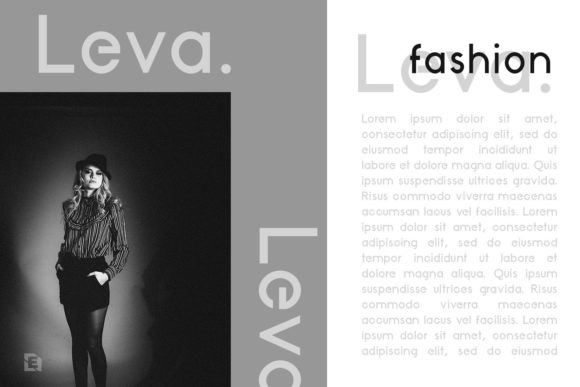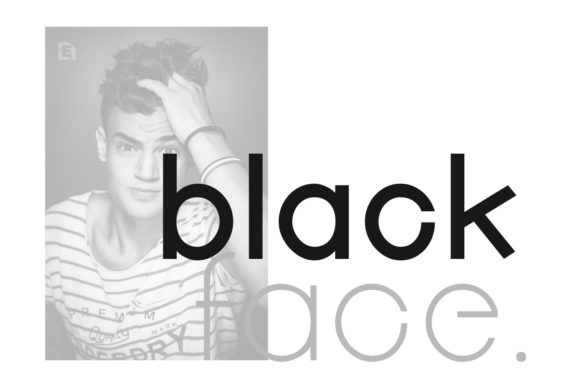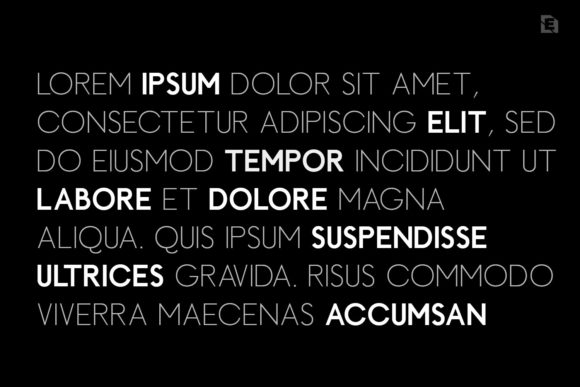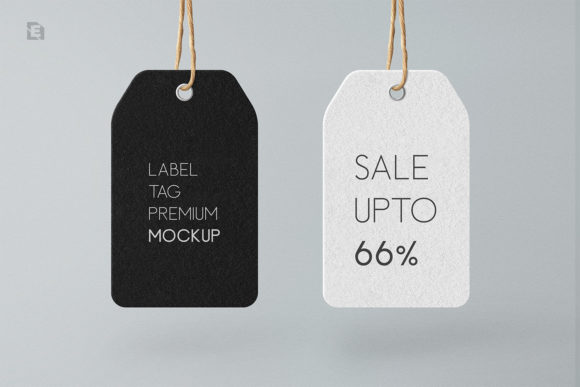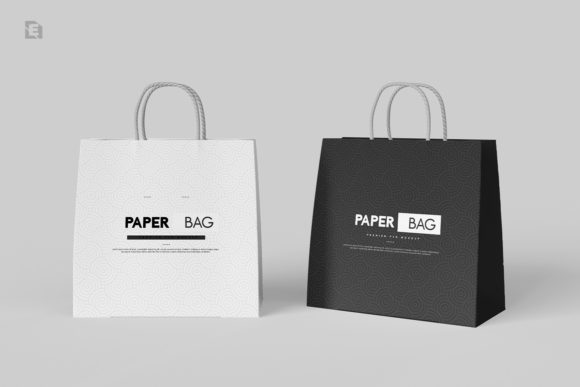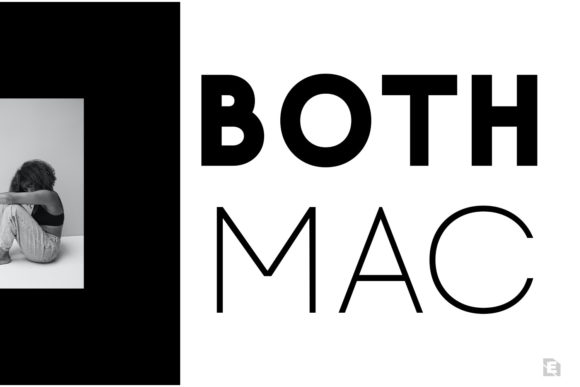
Discover the Fresh Face of Typography: Bothmac Font
Have you ever stared at a blank canvas, struggling to find the perfect font to bring your design to life? The blank page can be intimidating, but what if you had a secret weapon to add a touch of elegance and sophistication to your creations? For designers, finding the perfect font can make all the difference between a good design and a great one.
Enter the Bothmac Font, a modern display font designed to make a statement. This versatile font is perfect for adding a fresh and clean touch to your designs, whether you’re creating a bold headline, a logo, or a label. With its unique character, the Bothmac Font can elevate your designs and leave a lasting impression on your audience.
Bothmac Font Key Features
- Font Family: Bothmac is a sans-serif font family designed for digital use, available in a range of weights and styles.
- Character Set: The font family includes a comprehensive character set, including Latin, Cyrillic, and Greek scripts, as well as various punctuation and symbol sets.
- Unique Characteristics: Bothmac features a unique blend of modern and geometric elements, with a focus on legibility and readability in digital environments.
Bothmac Font Review
As a designer, I’ve had the chance to play around with the Bothmac Font, and I must say it’s a unique addition to any design project. ✨ One of the things that works well is its versatility – it’s suitable for both formal and informal designs, making it a great choice for a wide range of projects. The font’s elegant and modern feel is also a major plus, adding a touch of sophistication to any design.
- The Bothmac Font has a great balance of bold and light styles, allowing for flexibility in design.
- The font’s modern aesthetic makes it perfect for contemporary designs, such as logos, posters, and digital interfaces.
However, there are some limitations to consider. ⚠️ The font may not be ideal for projects that require a lot of text, as it can start to feel cluttered and overwhelming. Additionally, the font’s bold style may not be the best choice for projects that require a lot of emphasis, as it can be a bit too bold.
Overall, I’d give the Bothmac Font 4 out of 5 stars. While it may not be perfect for every project, it’s a solid choice for designers looking for a modern and elegant font. With a bit of creativity and restraint, the Bothmac Font can add a touch of sophistication to even the most complex designs.
Tips for Getting the Most Out of Bothmac Font
To get the most out of Bothmac Font, use it sparingly in bold headings and titles to add a touch of sophistication and elegance. Experiment with different font sizes and colors to create a visually appealing design. Avoid using it for large blocks of text, as it can be difficult to read.
Bothmac Font is commonly used in:
– Fashion and lifestyle branding
– Luxury product design
– High-end marketing materials
– Editorial and publishing design